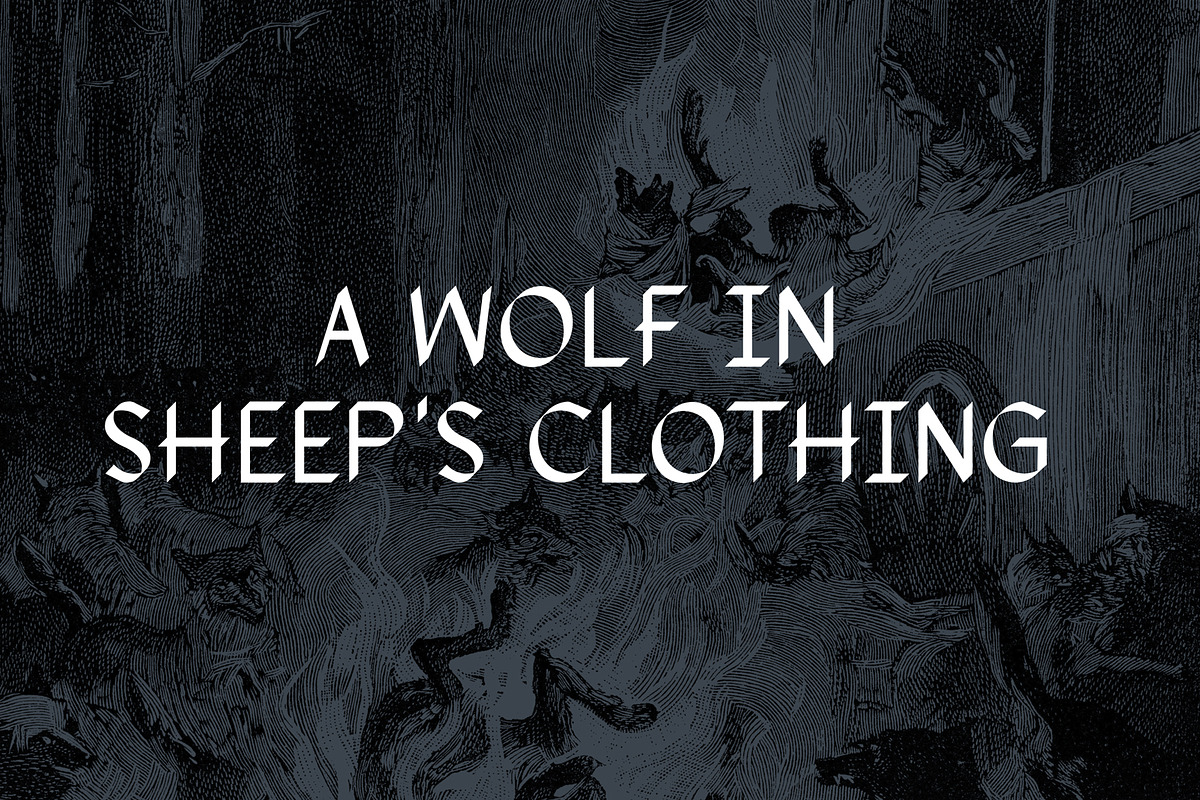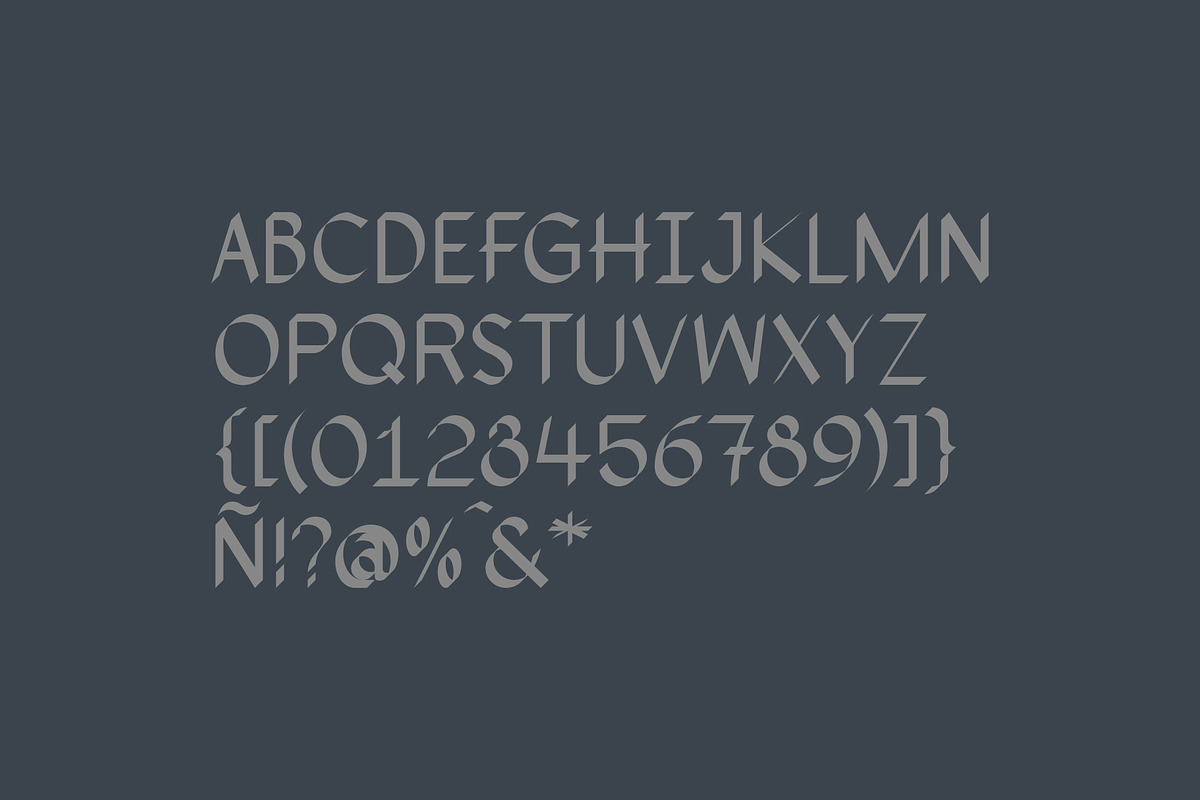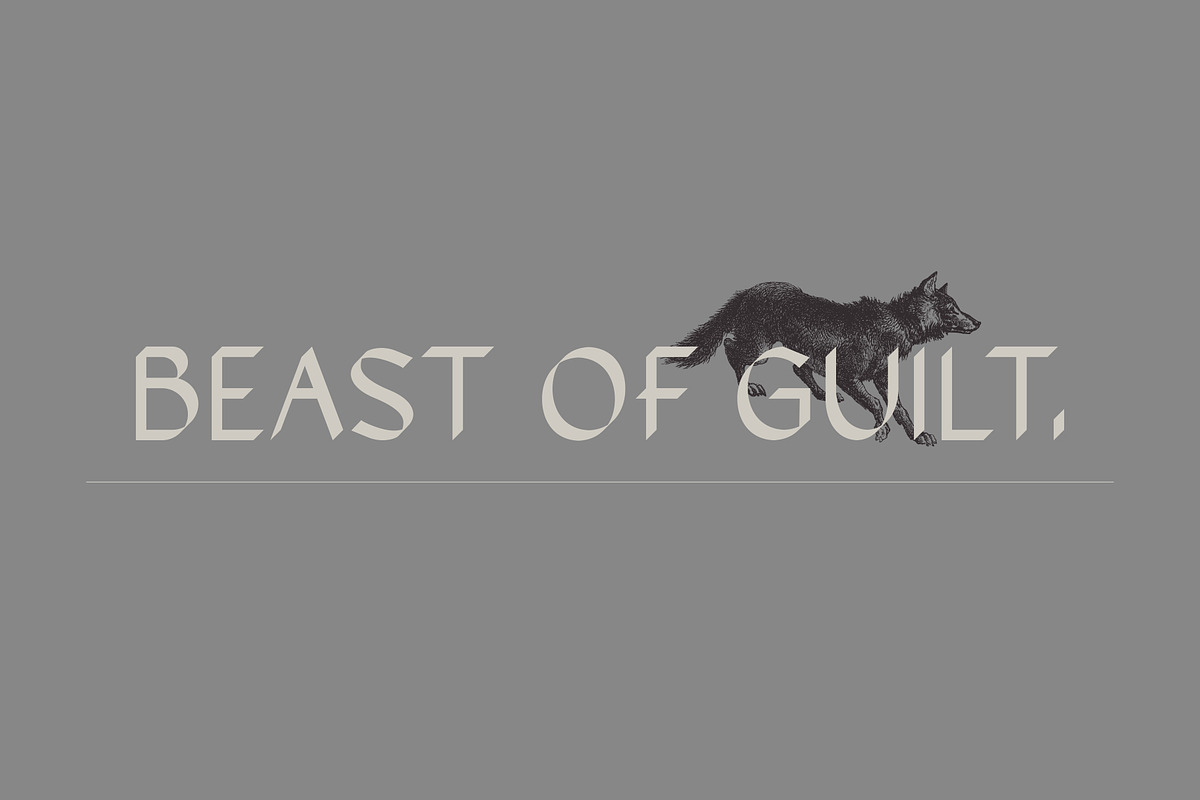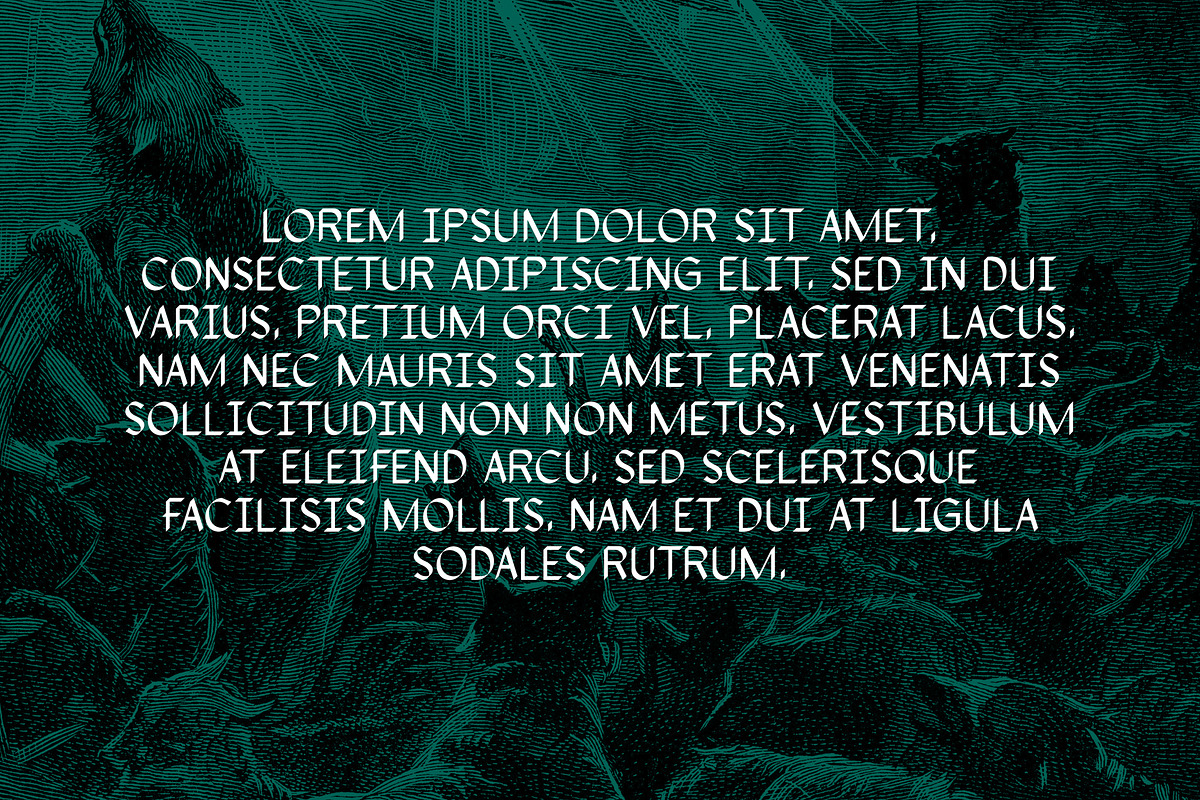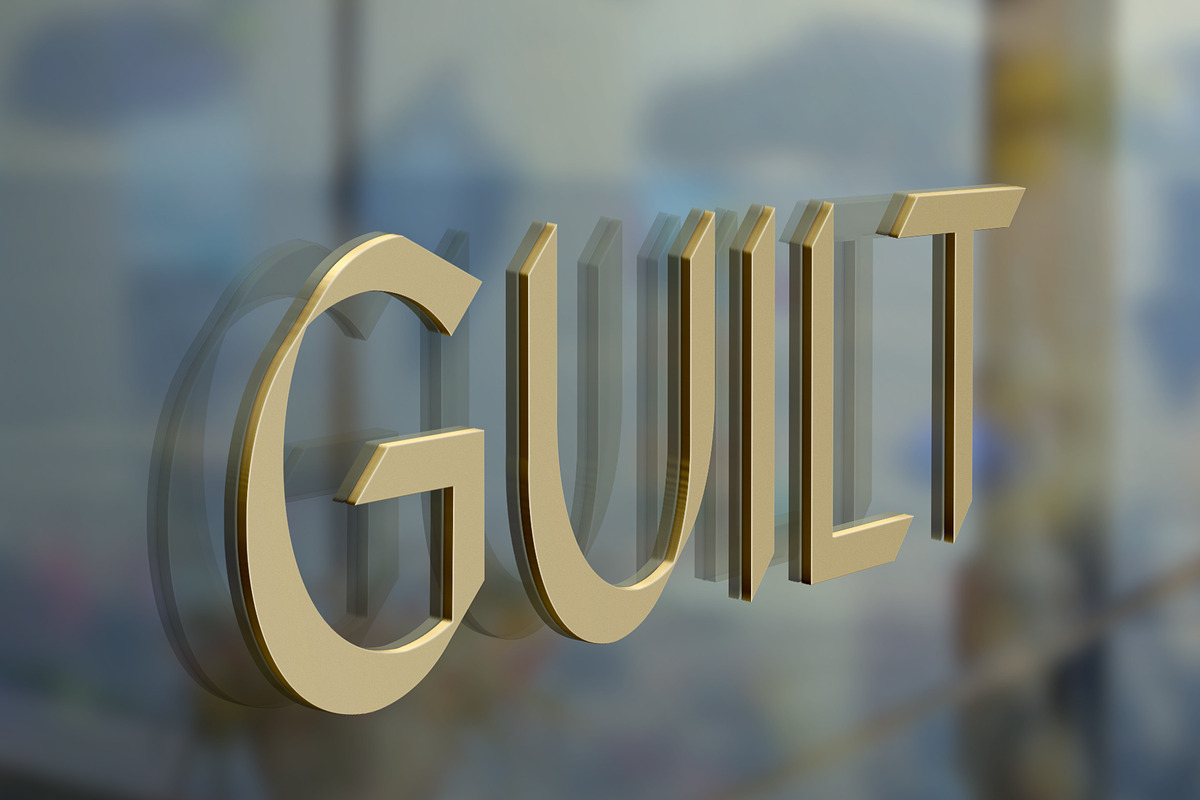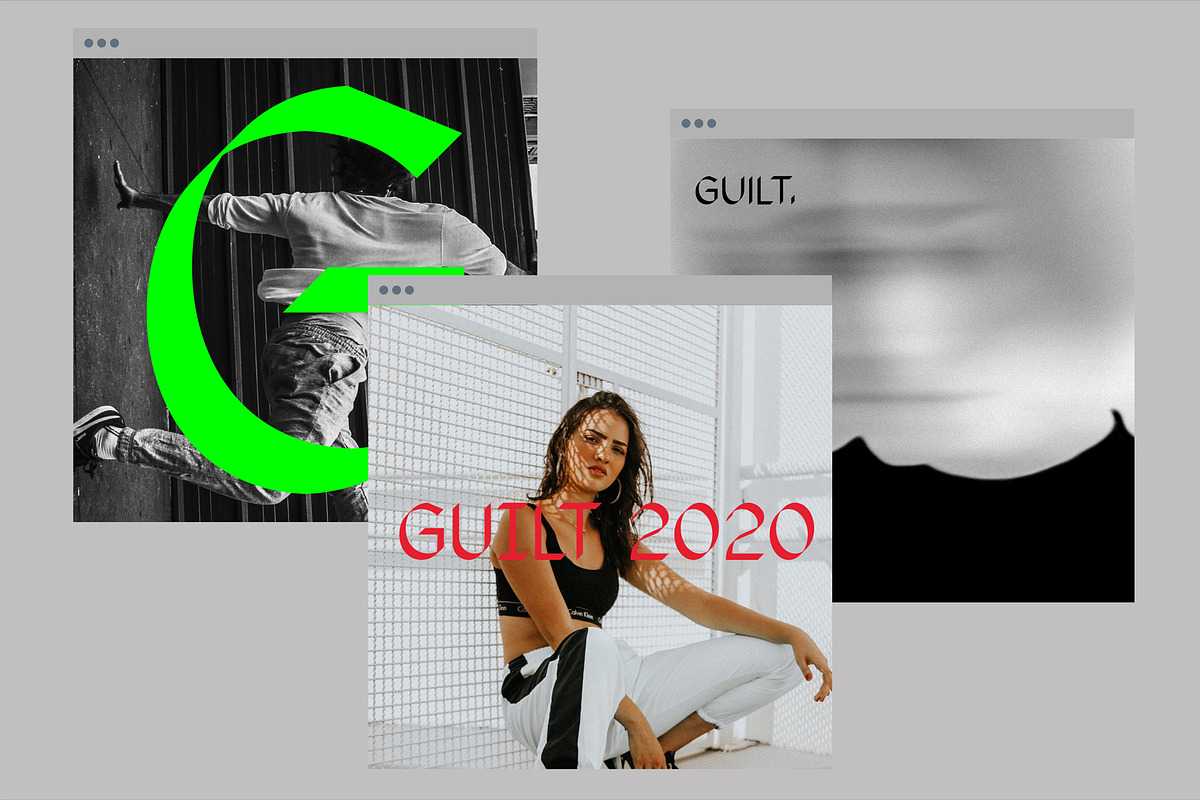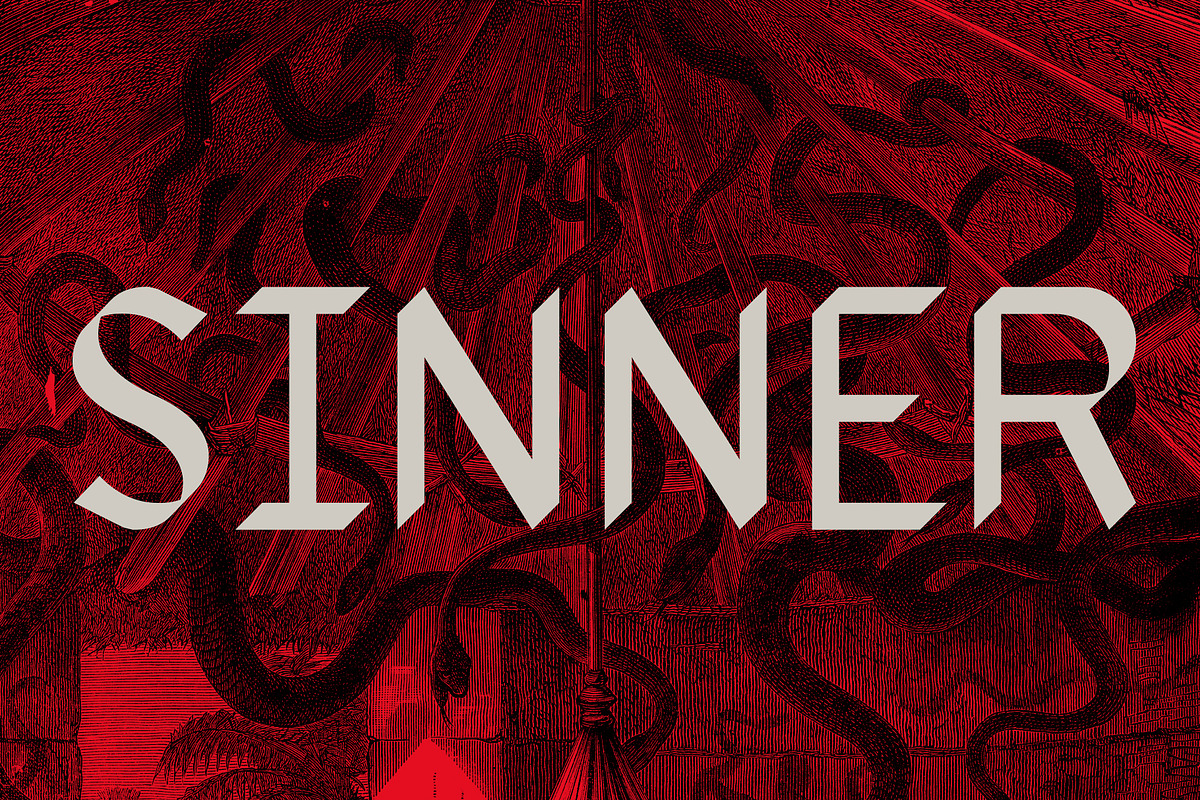
Srg-Beast of guilt display typeface
Srg-Beast of guilt display typeface.
An elegant & classic display typeface. CAPITALS ONLY
Specifically designed for display use, great for titles, logotypes, monograms and short texts, it includes 227 glyphs, ASCII / ISO 8859-1 (Latin-1)